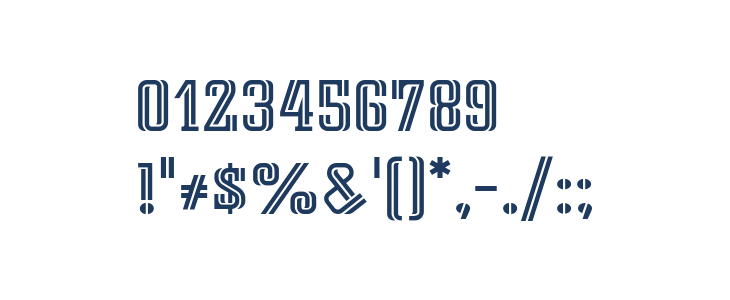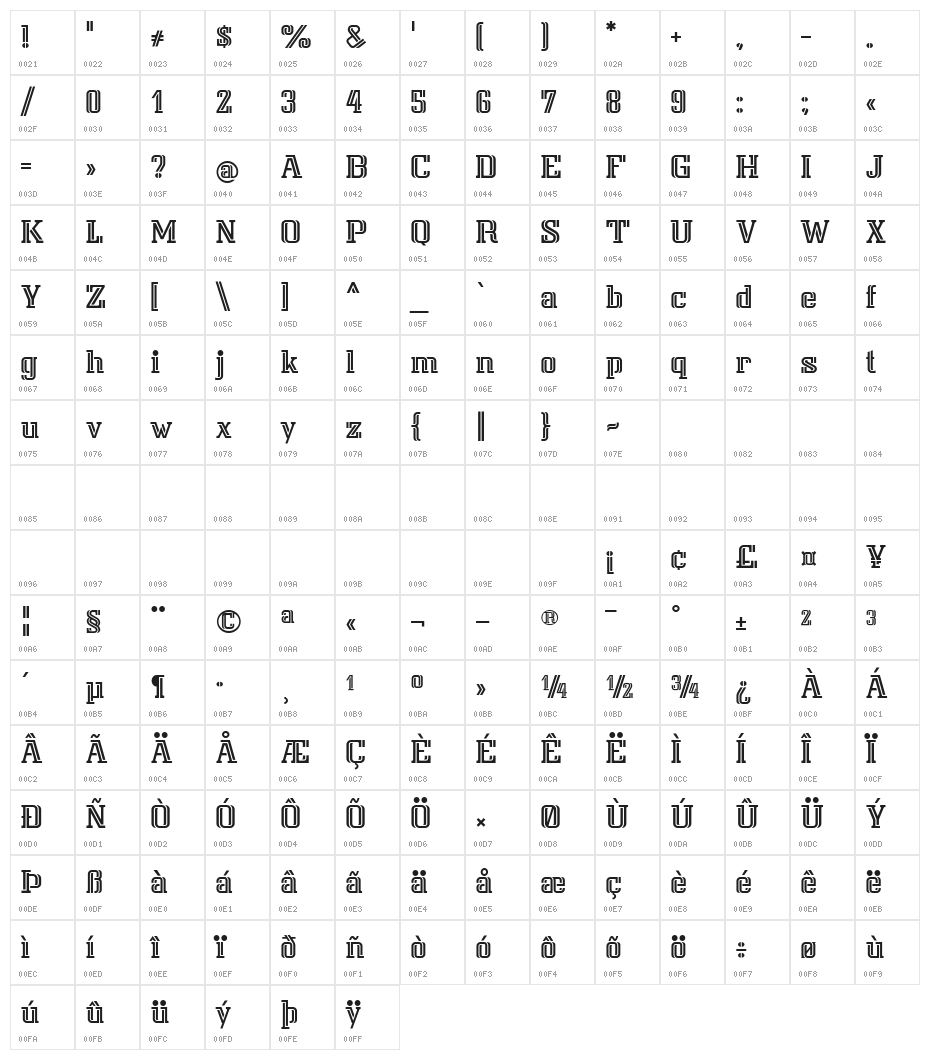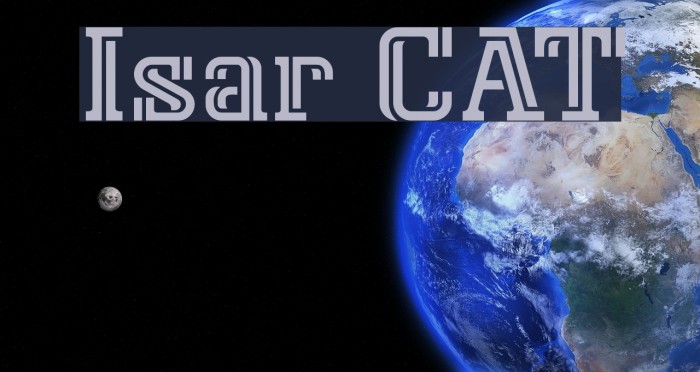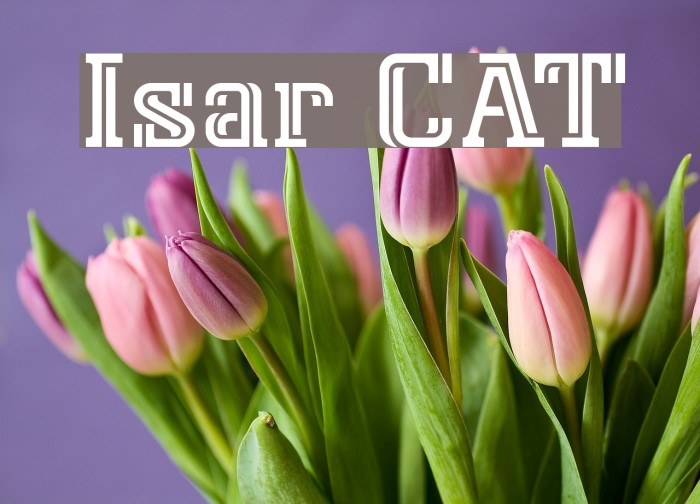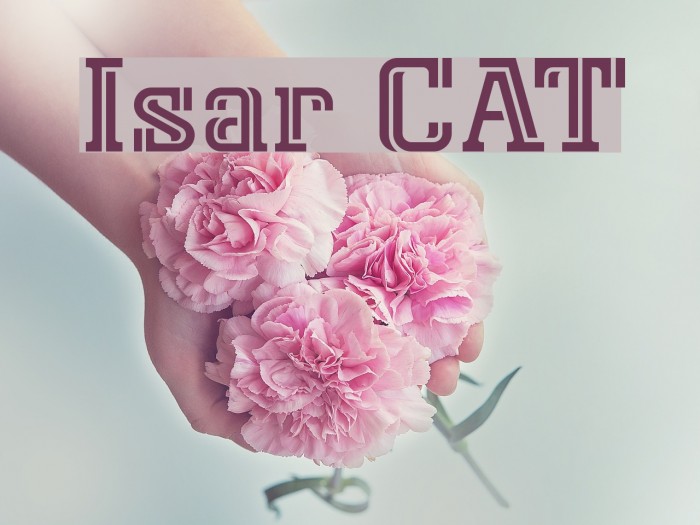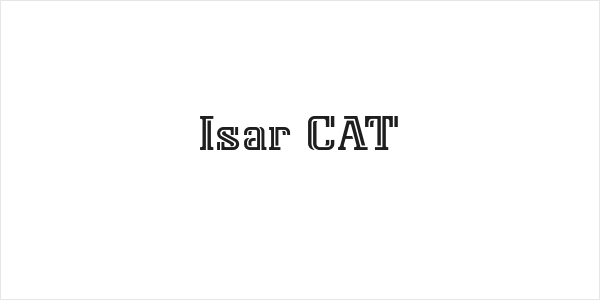
Isar CAT Font
Isar CAT Description
This font exhibits a bold and striking presence with its slab serif style, characterized by thick, block-like serifs that give it a robust and sturdy appearance. The uppercase and lowercase letters maintain a consistent width, contributing to a uniform and balanced look. The numerals are equally bold, ensuring they stand out clearly. Special characters are designed with the same boldness, making them easily recognizable. The overall design is reminiscent of vintage typefaces, yet it maintains a modern touch with its clean lines and structured form. The font's high contrast between thick and thin strokes adds to its dramatic and eye-catching appeal.
| Overall Style | Vintage, Modern |
| Proposed Projects | Ideal for branding projects, poster designs, headlines, and any creative work that requires a strong, impactful typeface. |